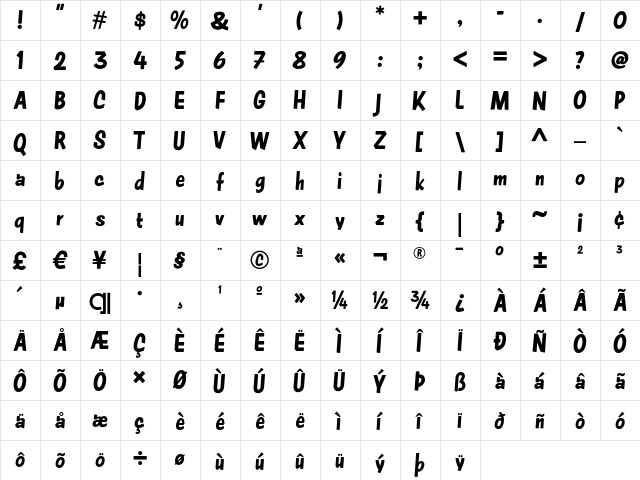
Amper Sans NF Regular
| Foundry | Nick's Fonts |
| Designer | Nick Curtis |
Design Context for Amper Sans NF Typeface
Amper Sans NF is a composed and adaptable typeface that performs quietly and consistently across a wide range of design contexts.